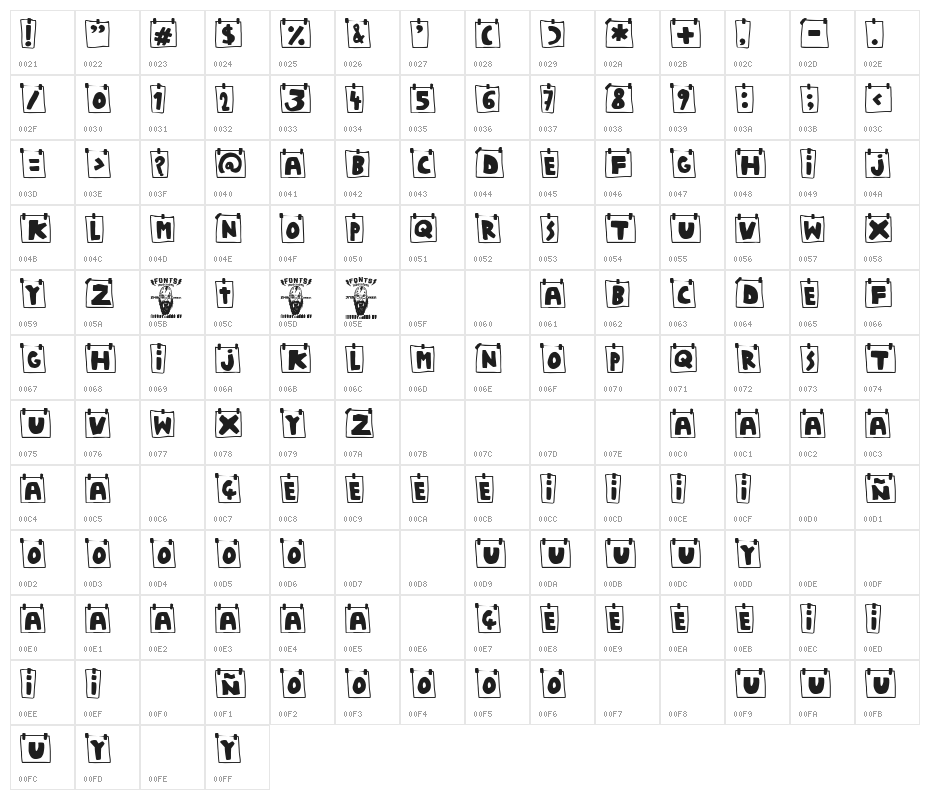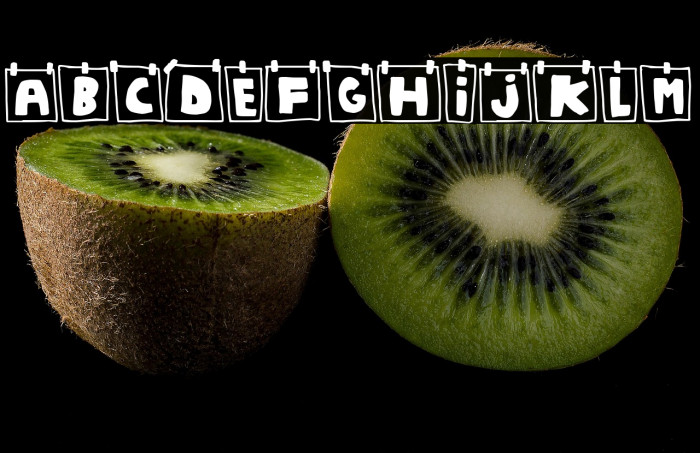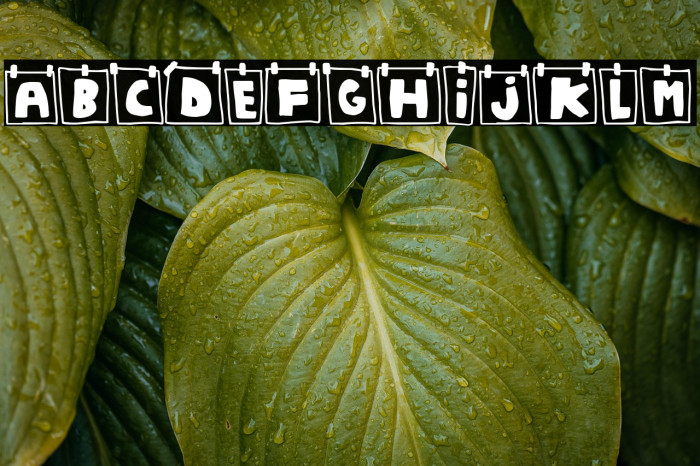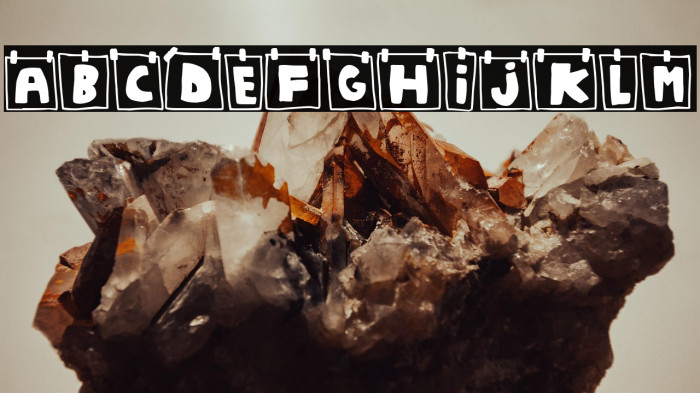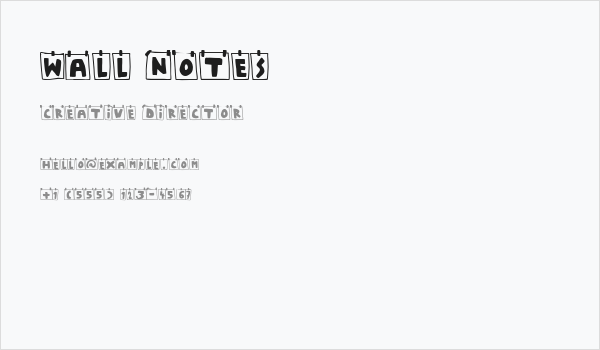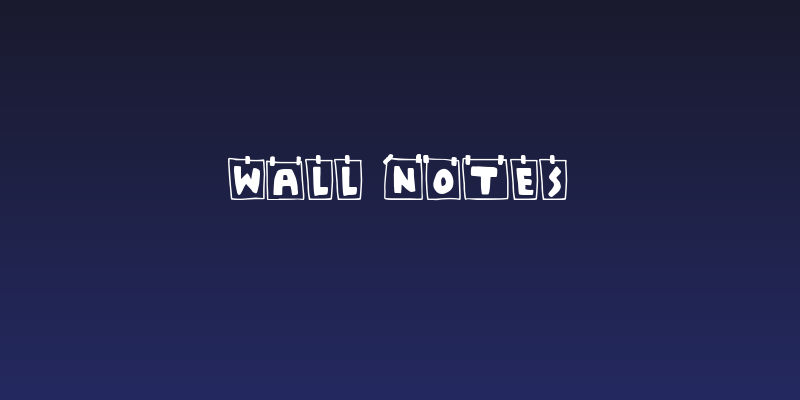
Wall Notes Font
Wall Notes Description
This playful and quirky font features characters that appear as if they are hanging on a wall, each letter and number enclosed in a square frame with a pin at the top. The bold, hand-drawn style gives it a casual and informal feel, perfect for projects that require a fun and approachable aesthetic. The letters are slightly irregular, adding to the whimsical charm, while the thick strokes ensure readability. The font includes a full set of uppercase and lowercase letters, numbers, and a variety of special characters, all maintaining the same distinctive style.
| Overall Style | Whimsical, Playful |
| Use Case | Headlines, Posters, Creative Branding |
| Proposed Projects | Ideal for children's books, playful posters, greeting cards, and creative branding. |